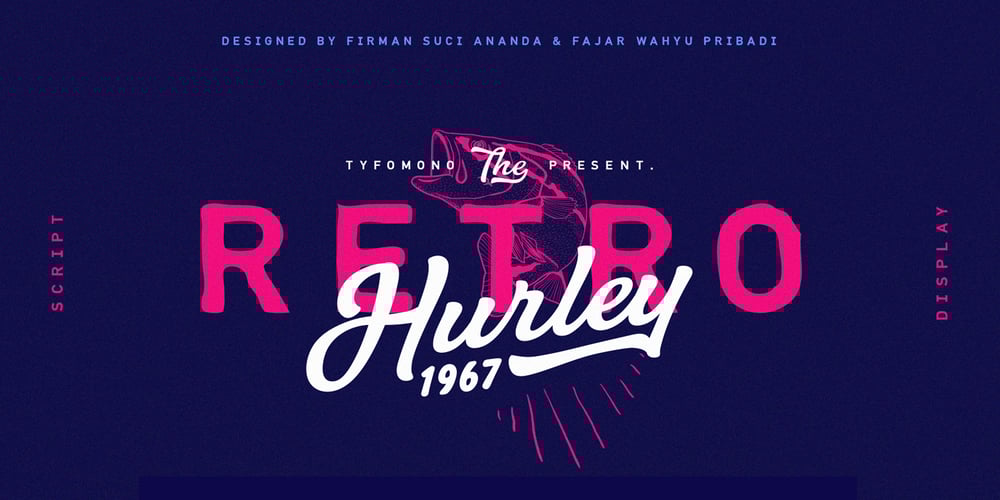
Hurley 1967 Font Family was designed by Firman Suci Ananda, Fajar Wahyu Pribadi and published by Tyfomono. Hurley 1967 contains 7 styles and family package options. Hurley 1967 is a bold script, with clean lines and smooth curve combined with beautiful features! Simply amazing fonts, comes with 7 styles. Hurley 1967 has a bunch of styles as a families to designed lettering style logotype using the fonts.